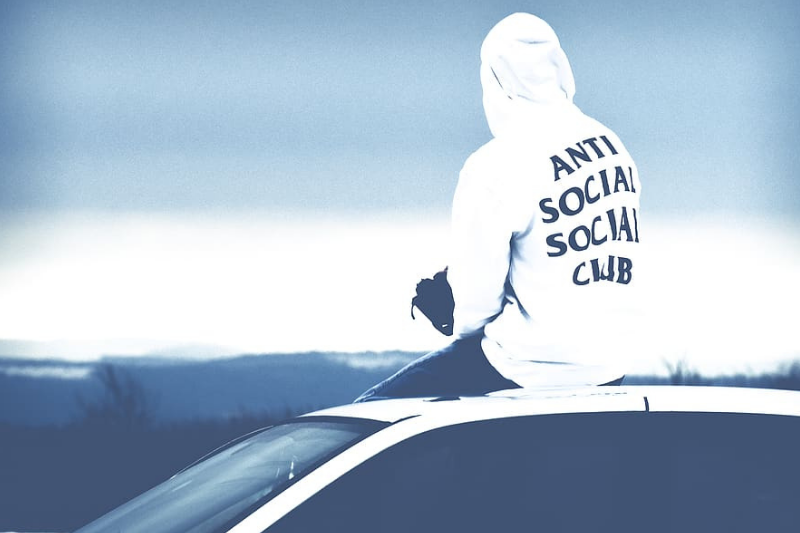
Anti Social Social Club Font Generator
About the Anti Social Social Club Font Generator
Anti Social Social Club has built one of streetwear's most recognizable visual identities on the tension between minimalist simplicity and emotionally charged messaging. The brand's clean, centered typography β€” often in pastel or bold colors β€” has become a staple of hypebeast culture and social media aesthetics. Our Anti Social Social Club font generator lets you recreate that ASSC-inspired look for your own text projects.
• Streetwear mood board graphics and concept mockups
• Hypebeast-themed social media posts and story text
• Fashion brand parody and fan-made design projects
• Custom hoodie and apparel text mockups
• Aesthetic desktop wallpapers and phone lock screens